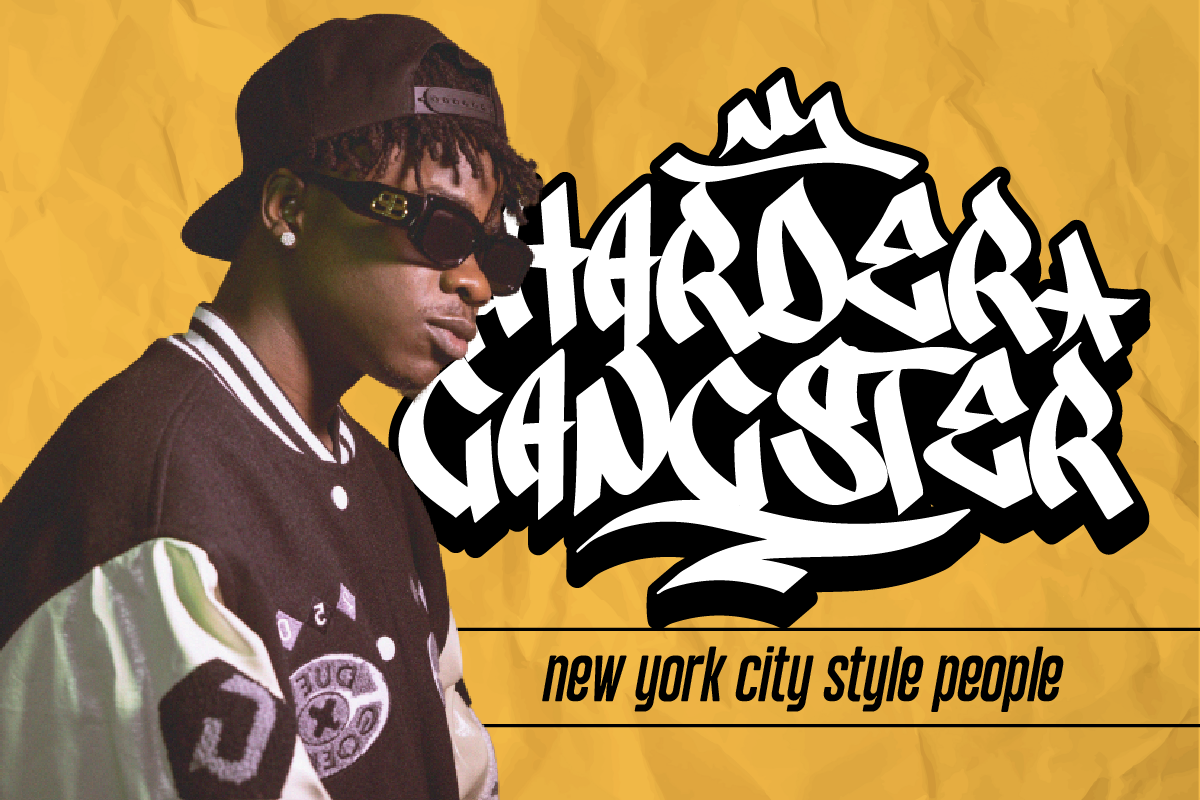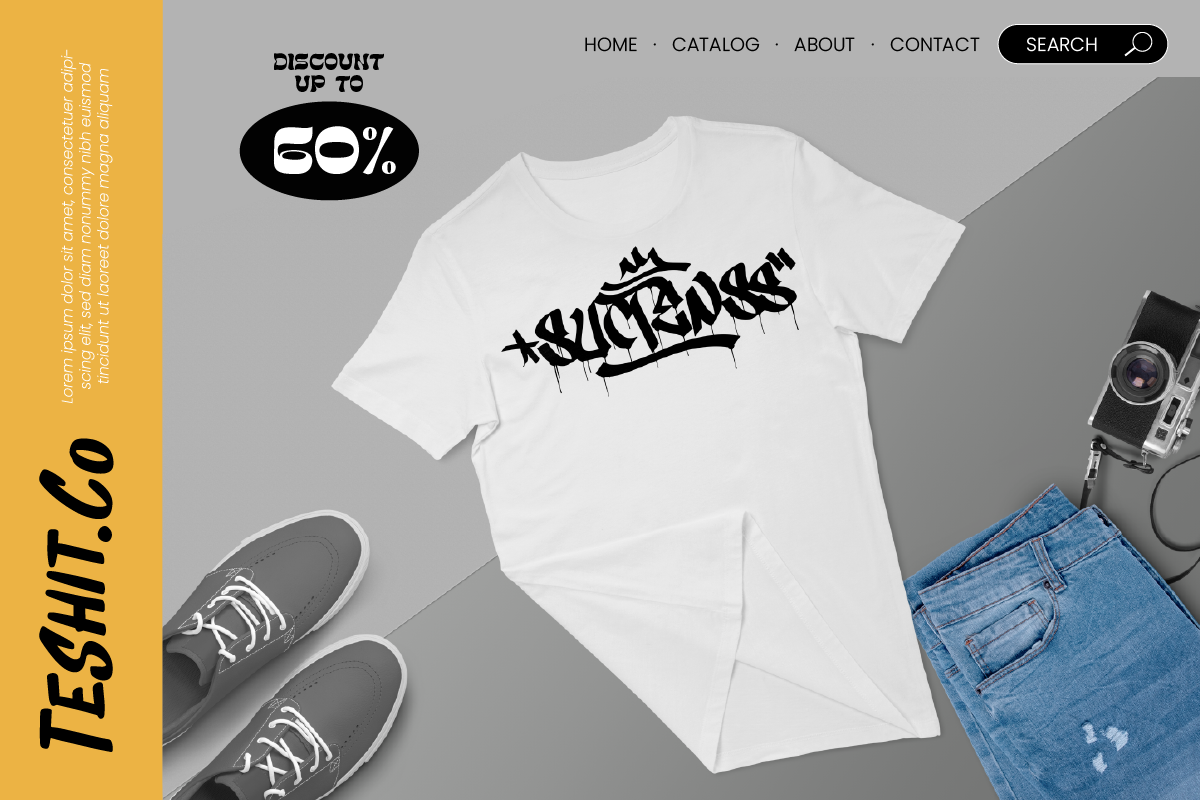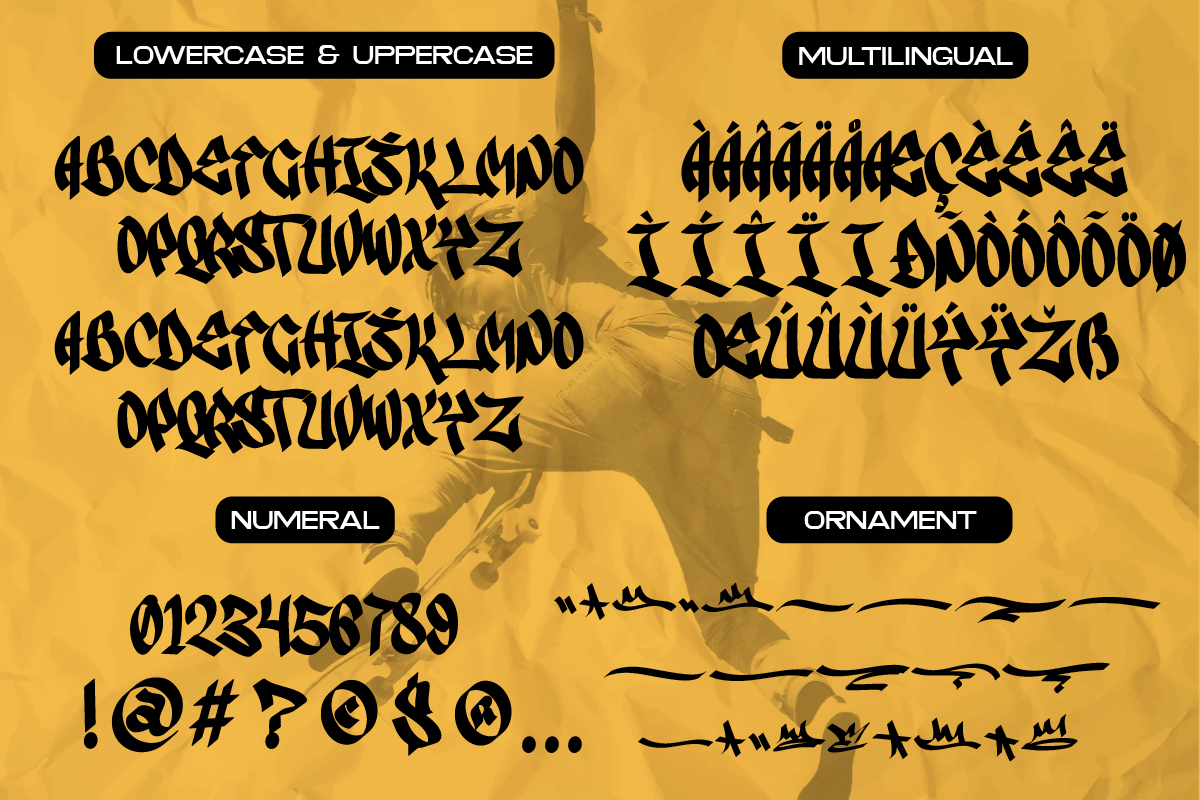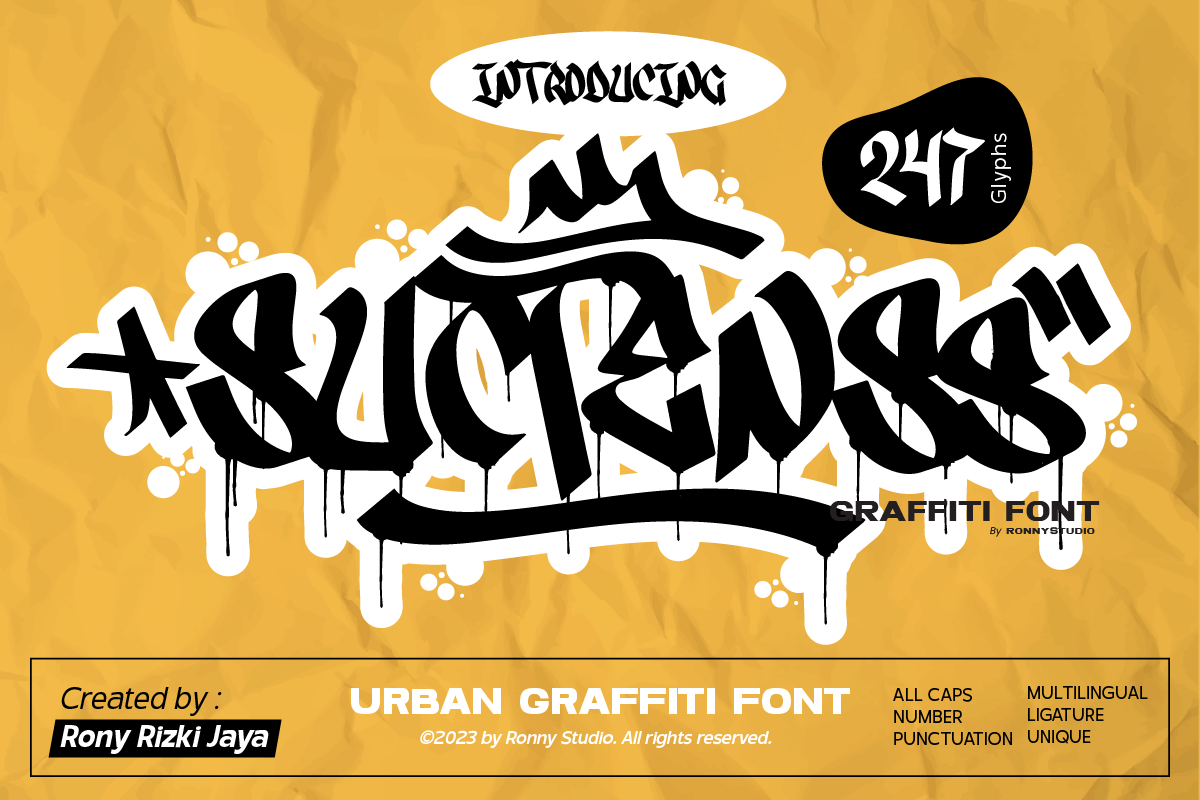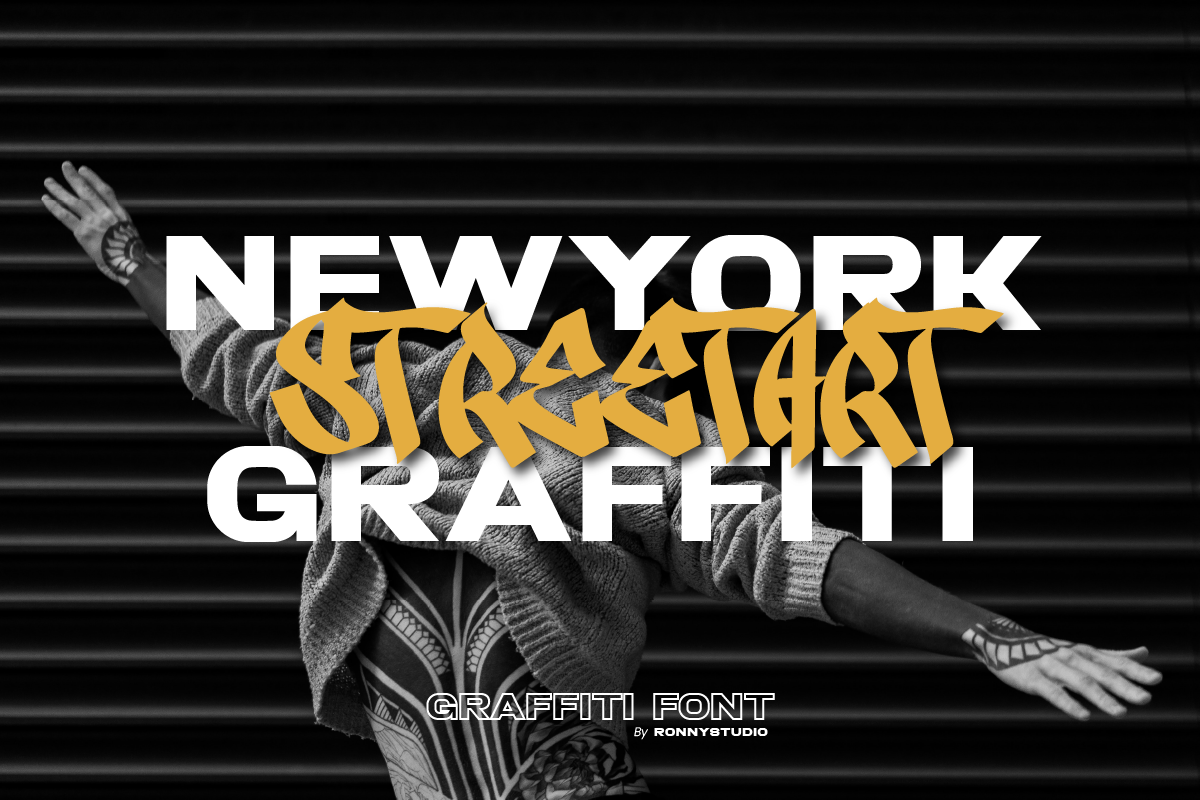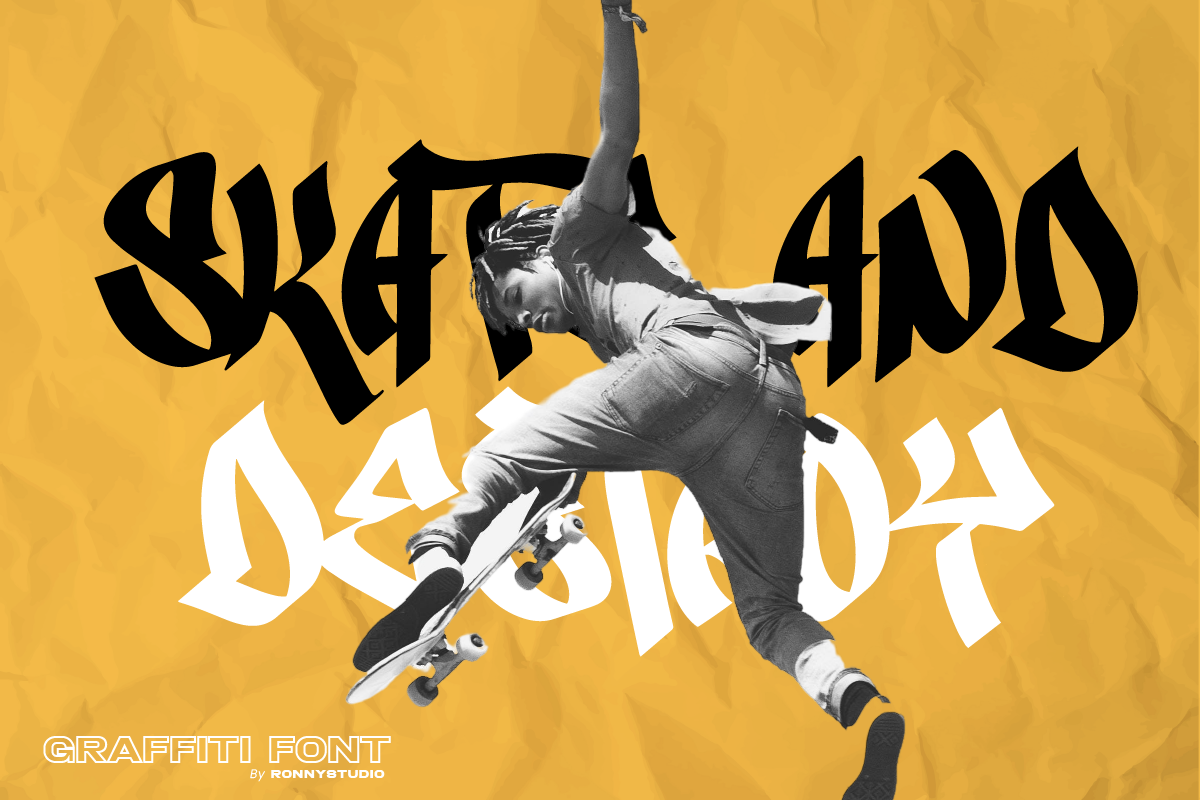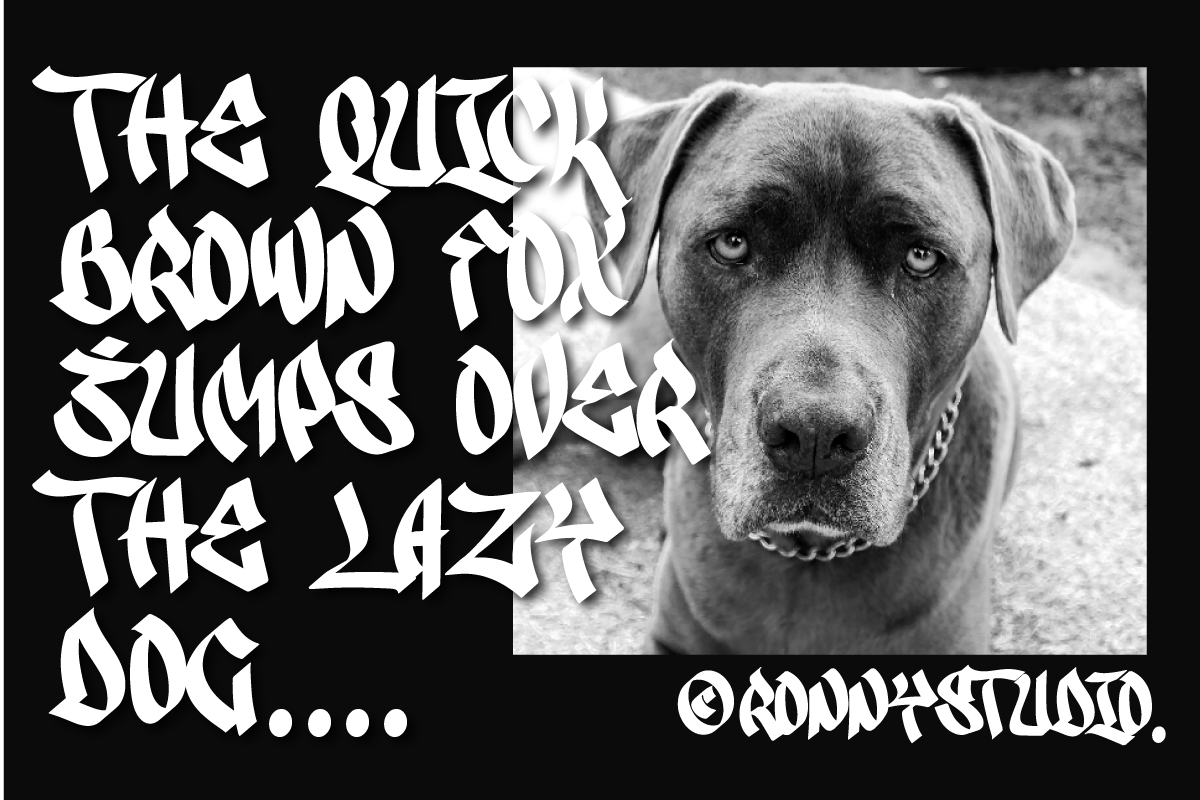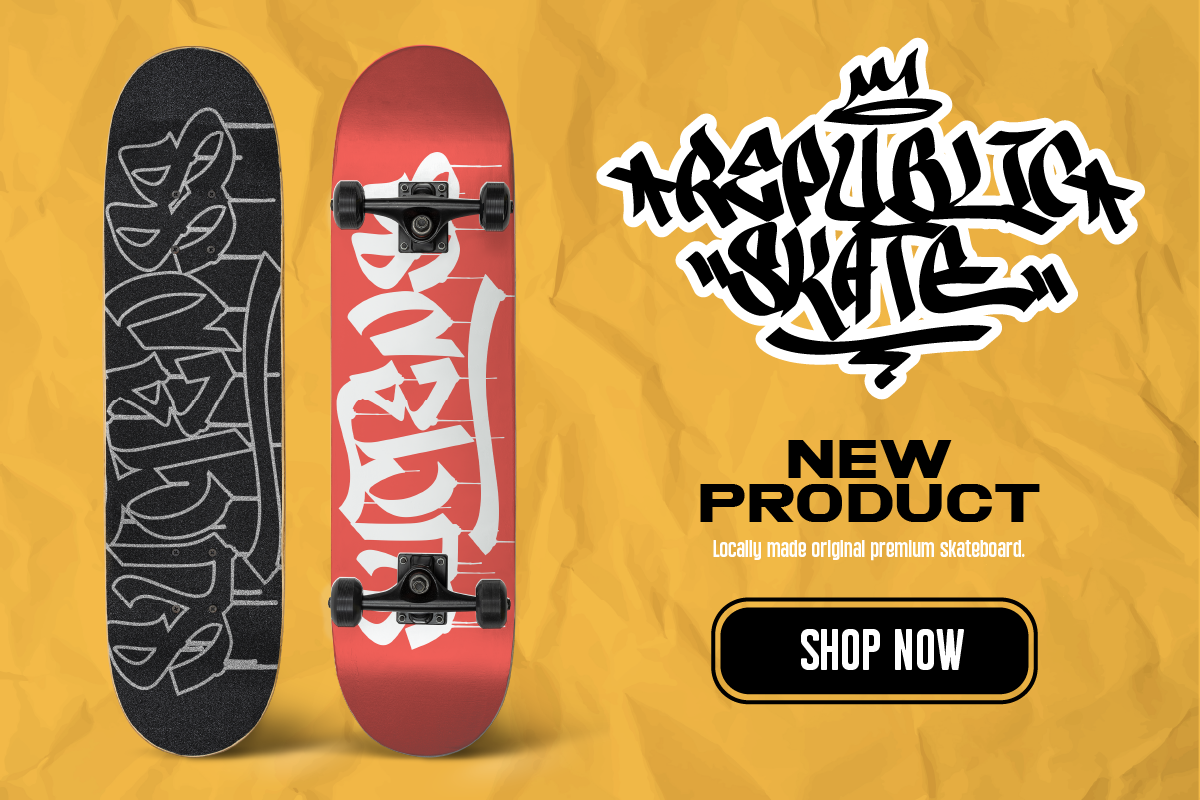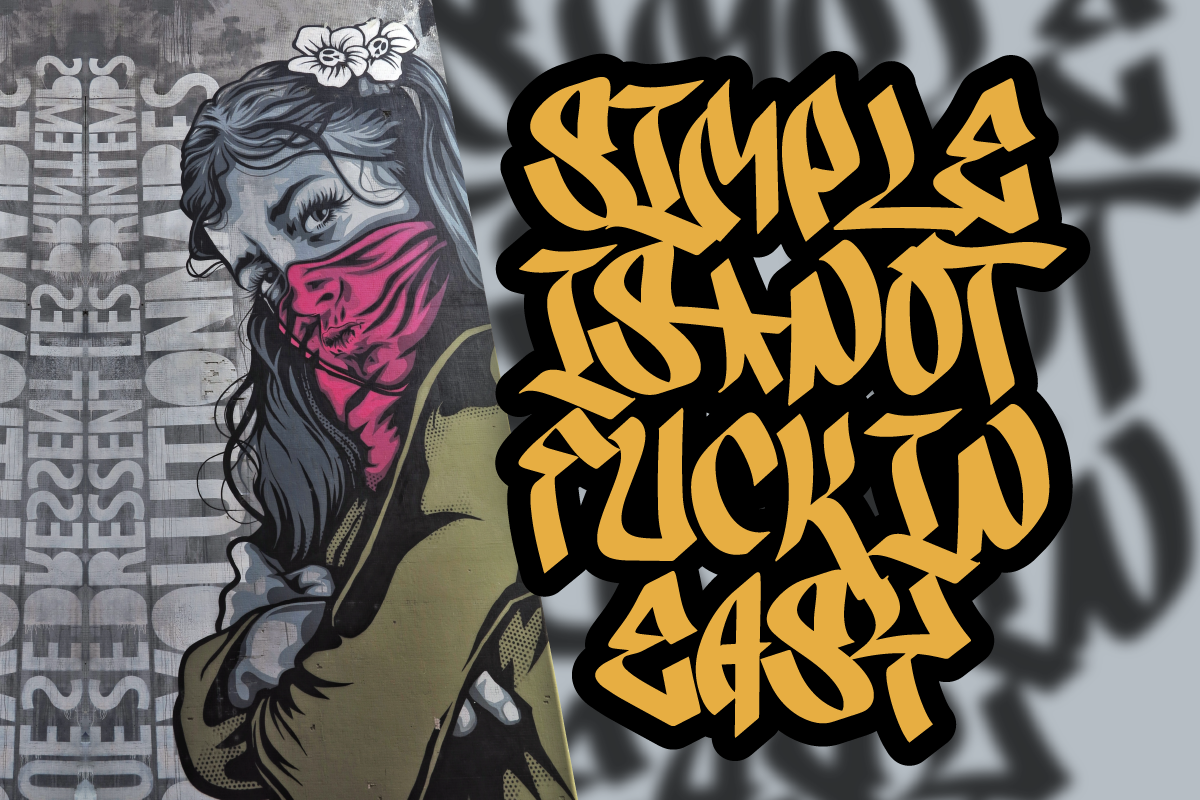
Suctenss Urban Graffiti Font
Suctenss Inspired by the realistic calligraphy marking style in many big cities. This style is bolder and easier to read, perfect for your "street art" design style. I incorporate real graffiti experience into computer fonts, I think it will be different to other fonts if you can feel it, because I draw graffiti, mark and throw up since I was in high school.
- All Caps
- Alternate & Ligature
- Swash / Ornament